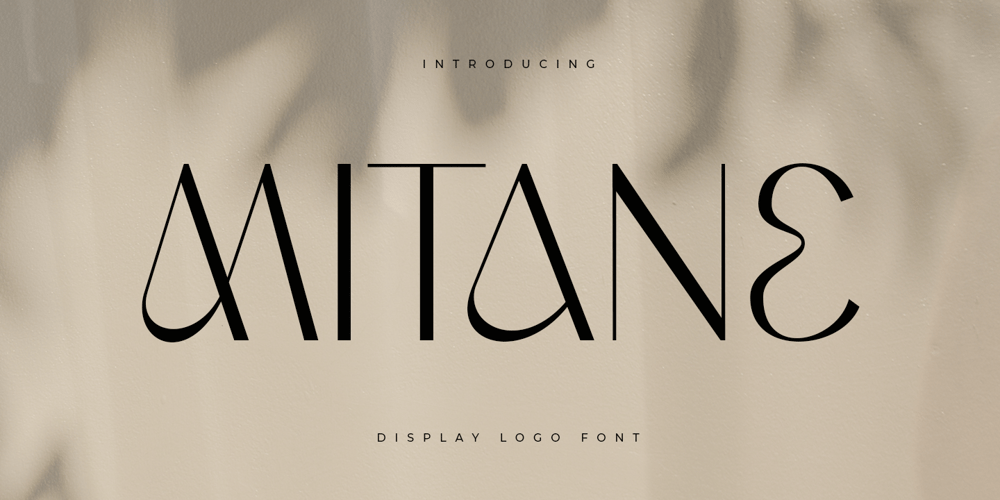
Mitane Font Family was designed by Zamroni Hamzah and published by Sensatype Studio. Mitane contains 1 styles and family package options. A Unique Display Logo Font that we created special for Beauty and Modern branding needs that will give you more elegant look, with alternates in unique shape will be ready to add value of your brand. It so nice to leverage designer or product owner that need solutions to make their design look more Beauty and modern. And specially for this font, We prepared any alternate characters to help you create unlimited variations for your creative needs.Mitane Display Logo font ready with: Any options to get creative variations (combination of Alternates) 4 format already Preview as a inspirations that you can do with Mitane font Ready with Lowercase and Uppercase characters Wish you enjoy our font. ๐